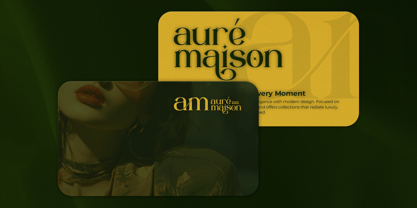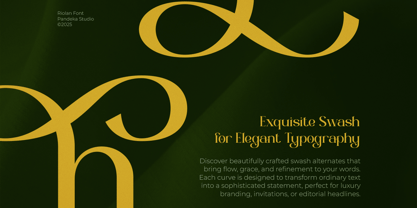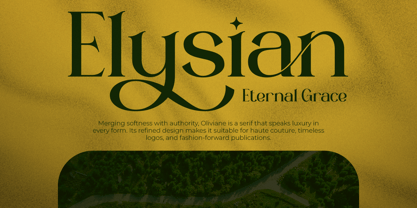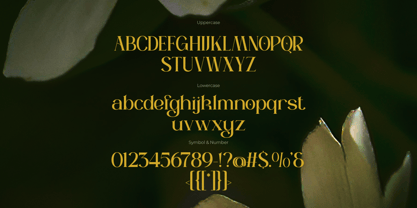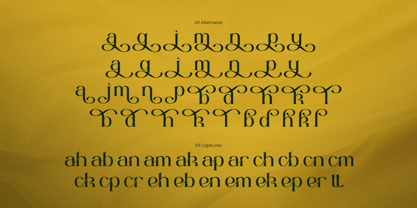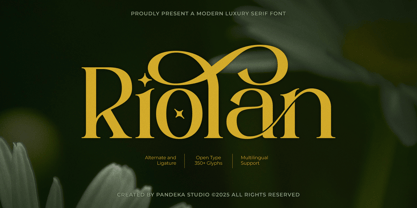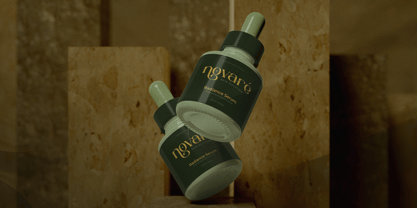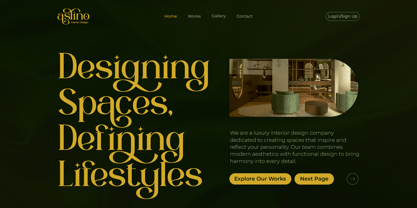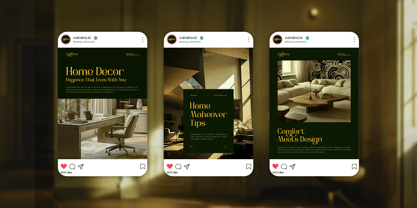
Riolan is a refined serif typeface that radiates sophistication and timeless beauty. Designed with graceful curves, high contrast, and elegant proportions, this font brings a sense of exclusivity to any visual identity. Perfect for luxury logos, fashion brands, editorials, packaging, and modern lifestyle projects, Riolan embodies the essence of classic elegance with a contemporary flair.
Every letterform in Riolan is crafted to exude confidence and grace, making it an excellent choice for designers who value premium aesthetics and refined details. The unique balance of smooth swashes and sharp serifs gives Riolan its luxurious and memorable character.
Riolan comes in 1 Regular style, featuring 55+ alternates & ligatures for endless creative possibilities, allowing you to craft bespoke logotypes, monograms, and high-end typographic compositions with ease. It also includes uppercase, lowercase, numbers, punctuation, and multilingual support.
Riolan